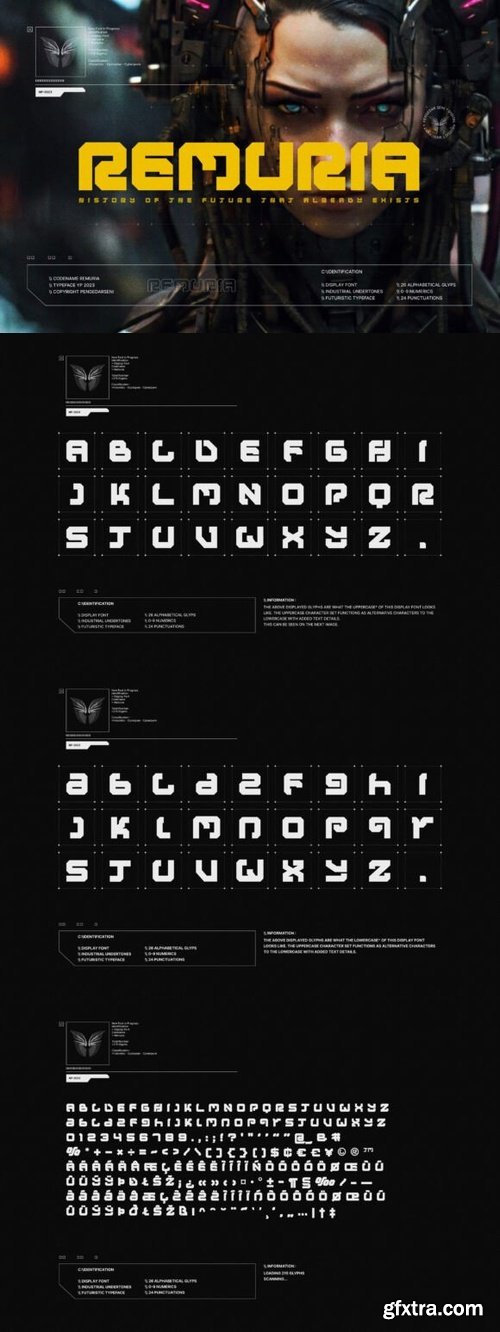
- Remuria Typeface is a bold display type with a futuristic vibe. Simple in a good way and efficient with tight kerning making it a great choice if you want a future look to your design. Remuria would be perfect for Futuristic Headline, Tech Theme, titles, logos, clothing brands, IT Website (landing page), and sci-fi film projects.